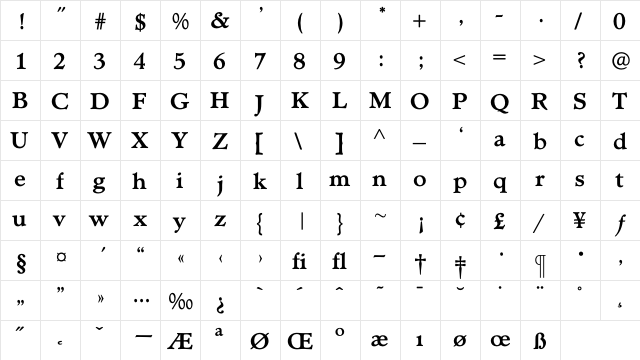
TCAdministerBold Regular
Design Context for TCAdministerBold Typeface
TCAdministerBold takes a measured approach to typography — its balanced proportions and neutral character make it a reliable workhorse for both digital and print work. The heavy weight commands attention and anchors typographic hierarchies.
Originally released in 1994, this typeface is available in OpenType (OTF) format.